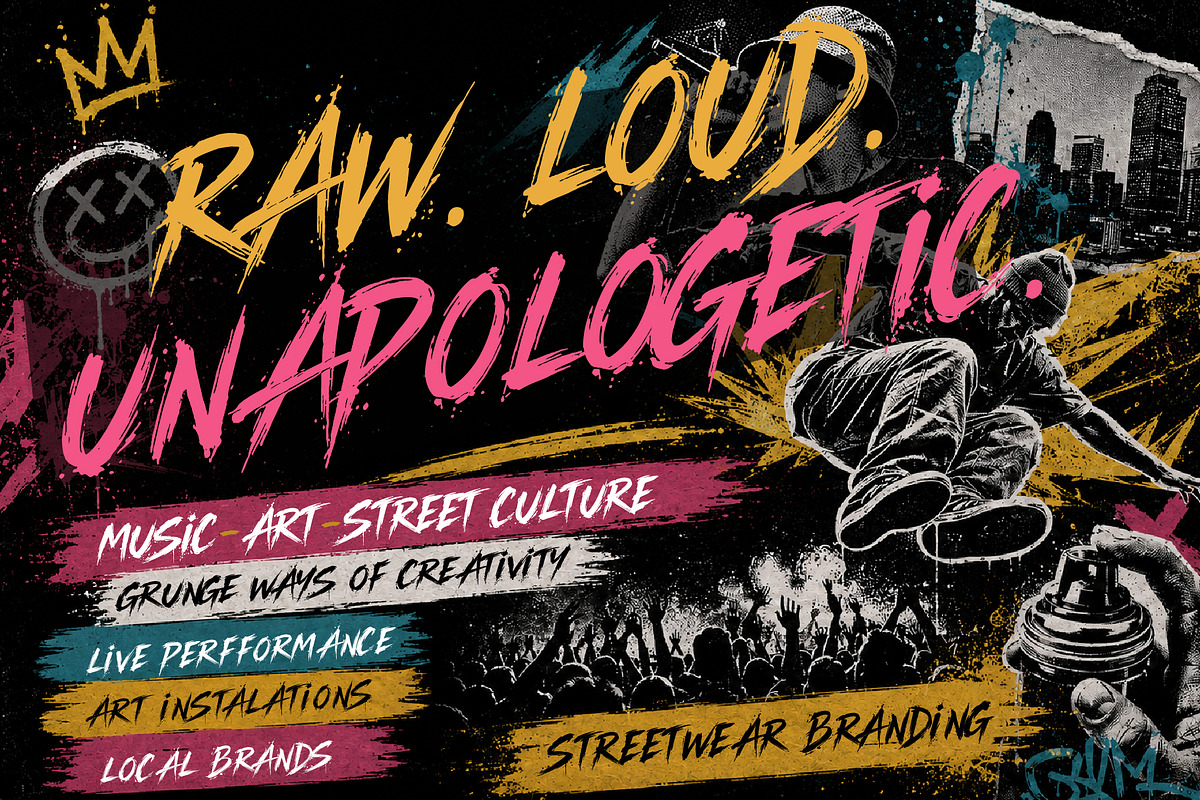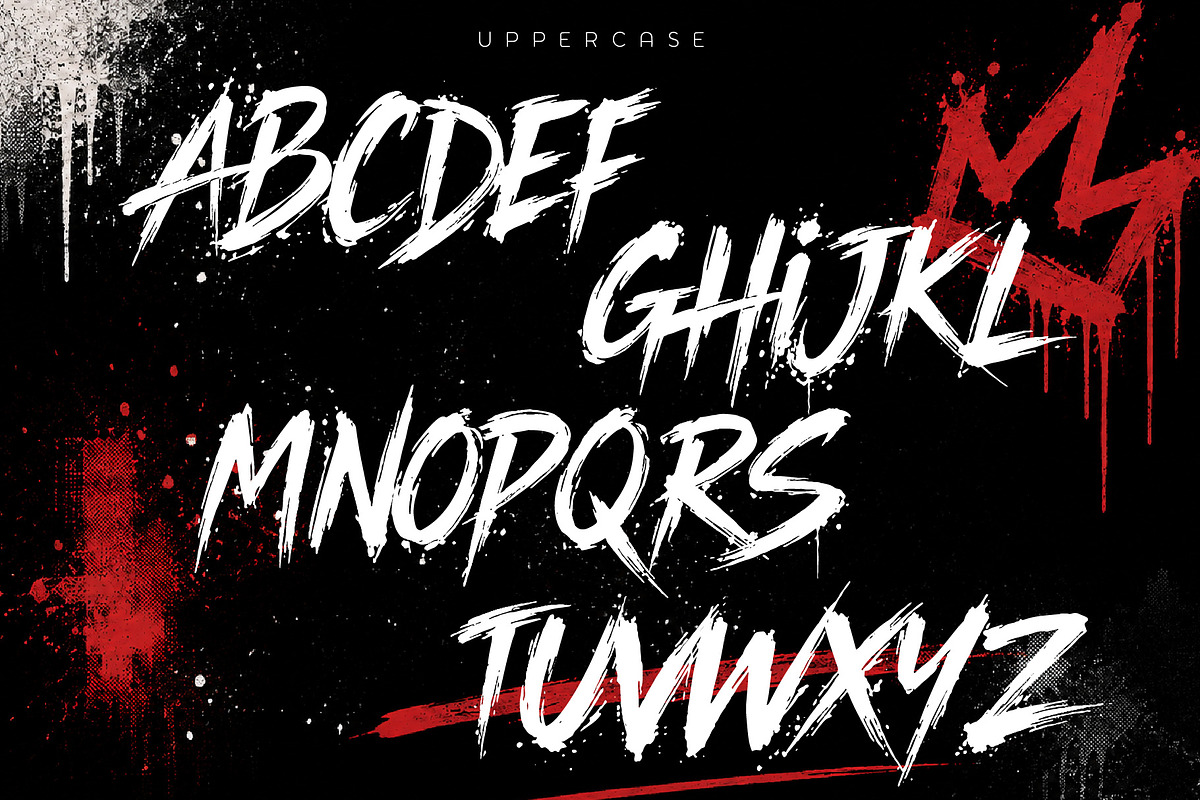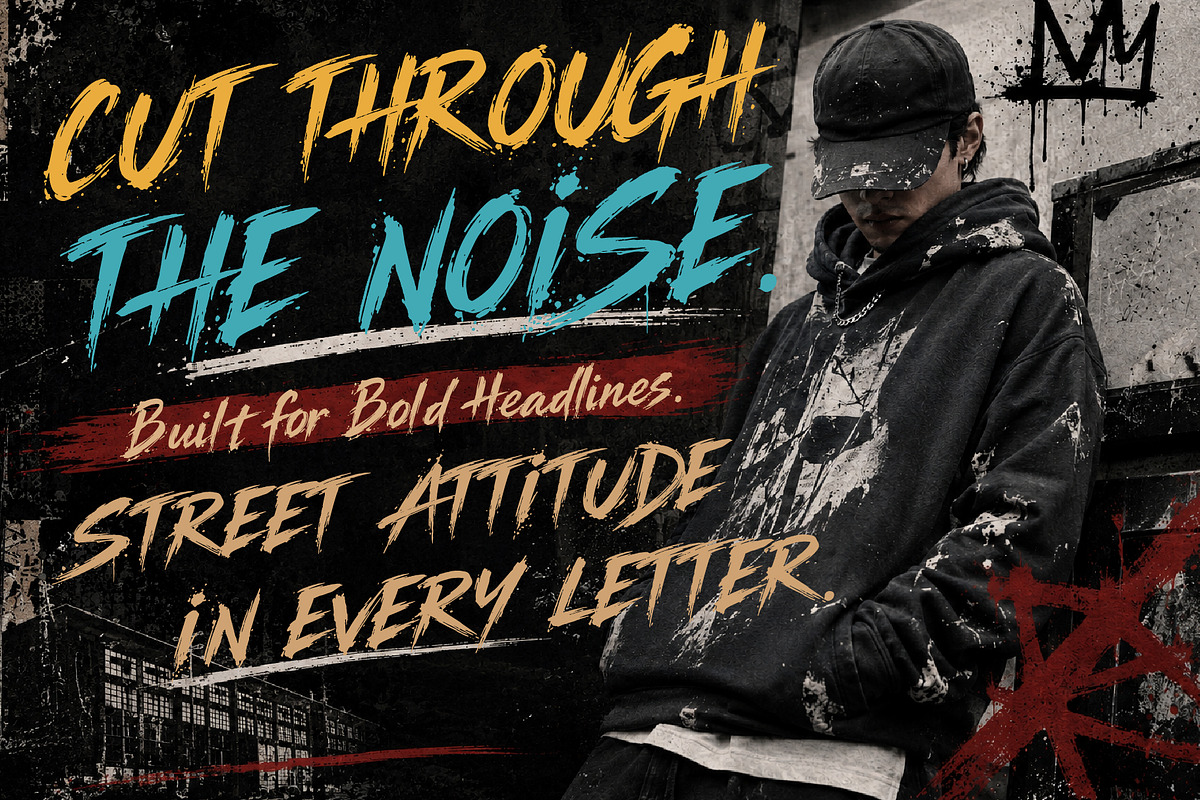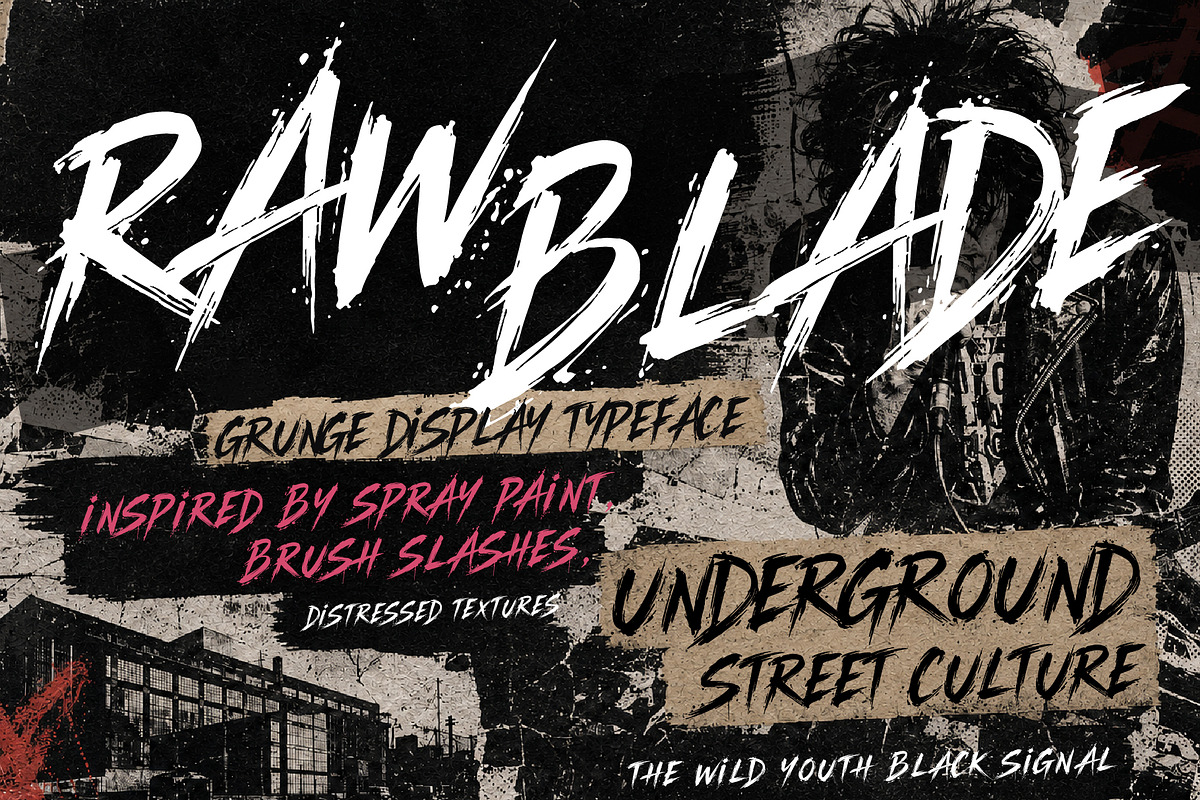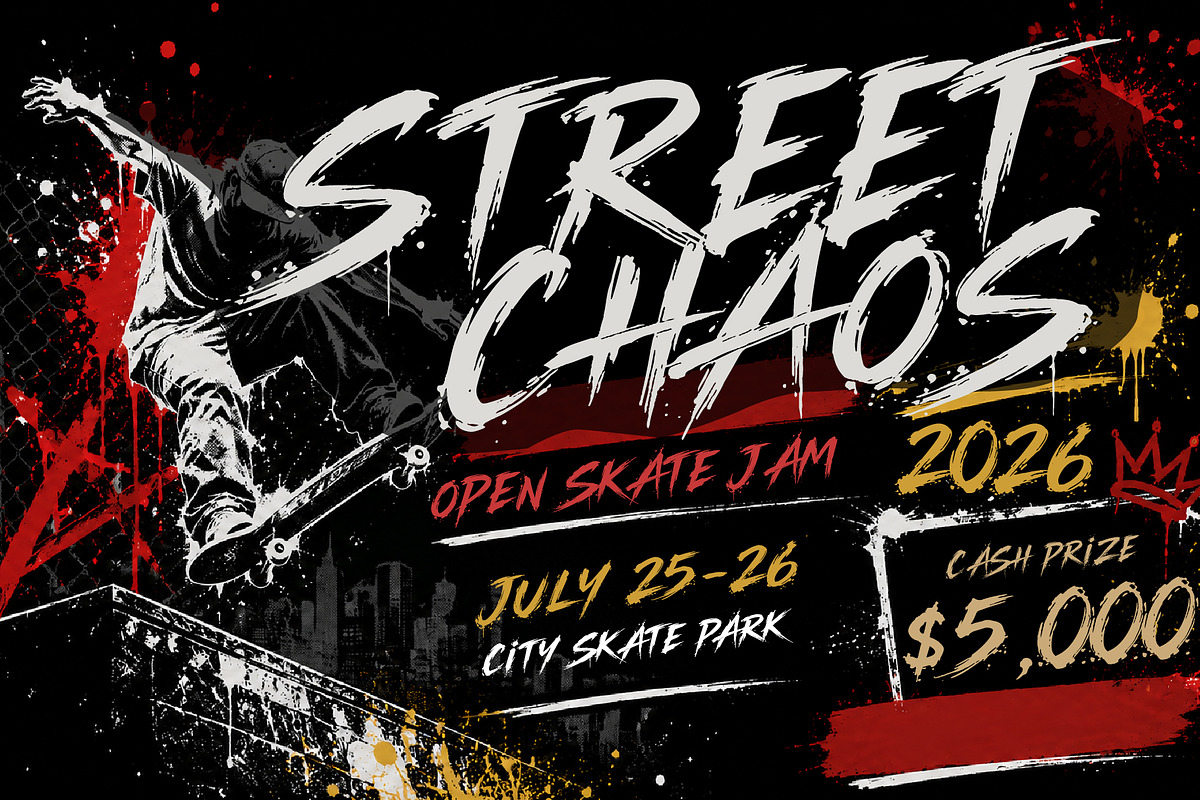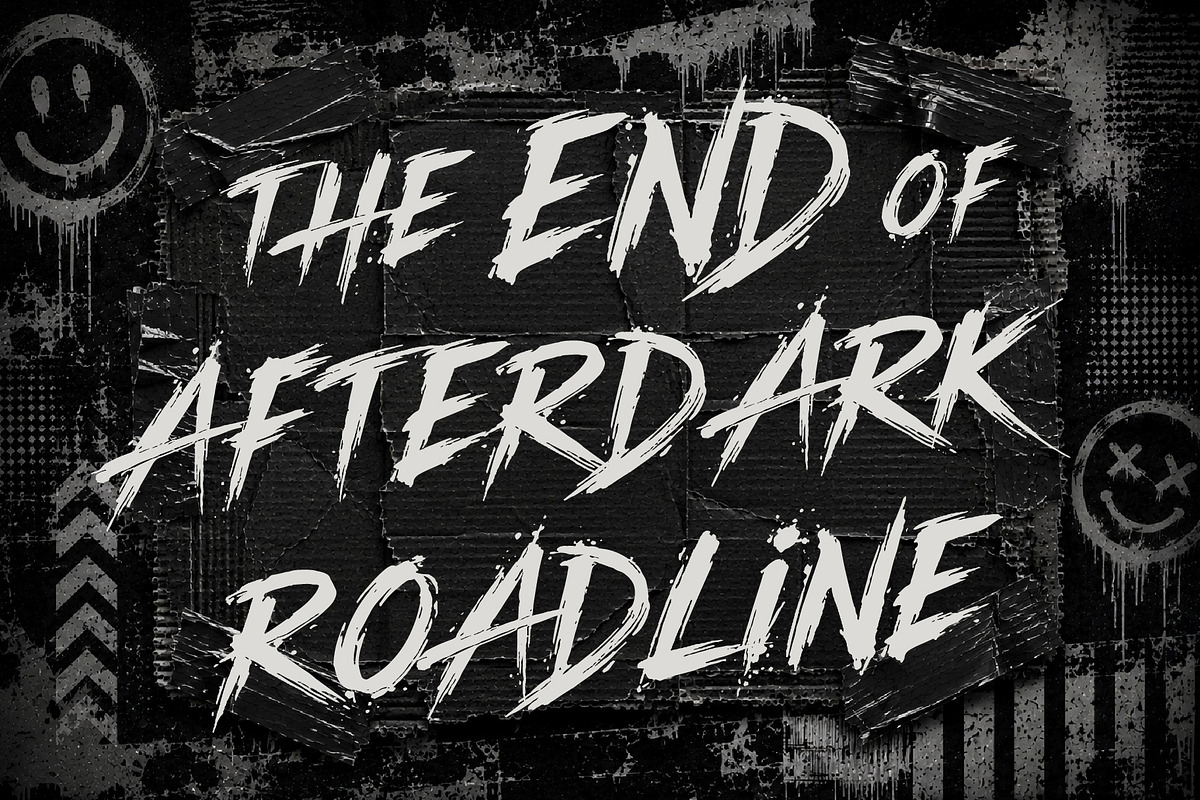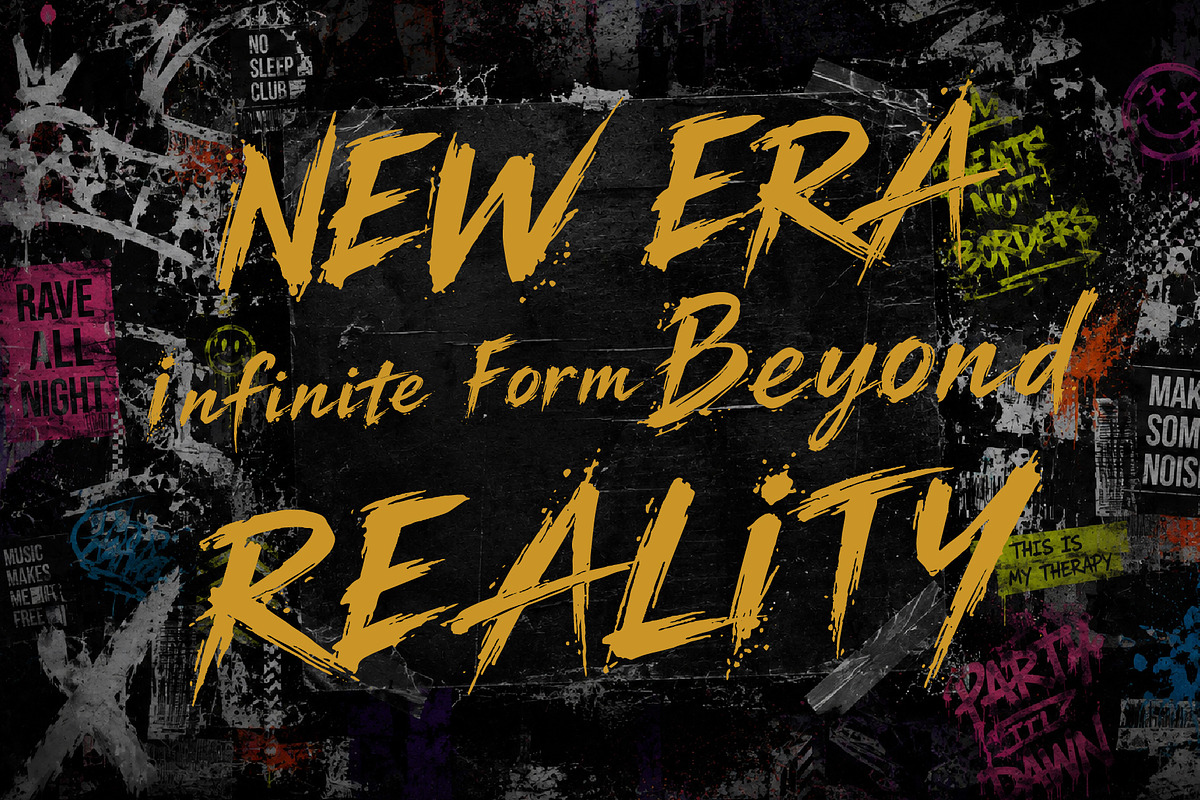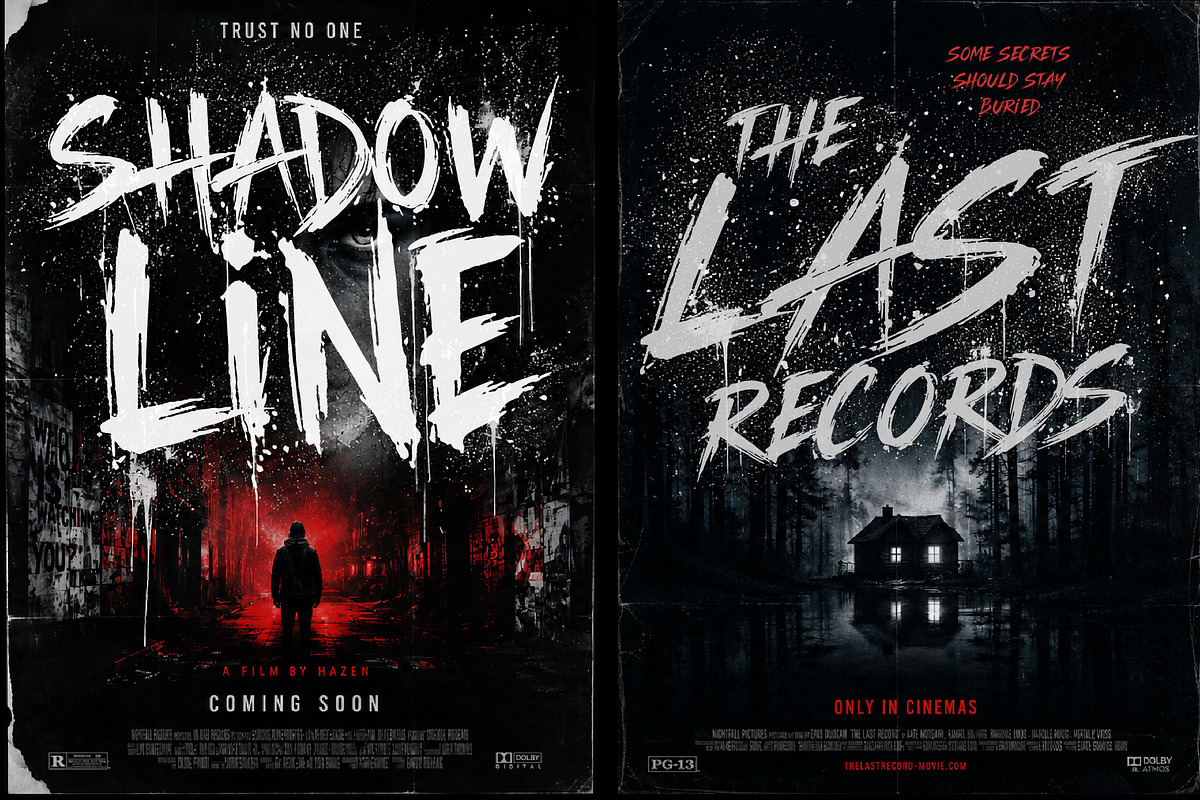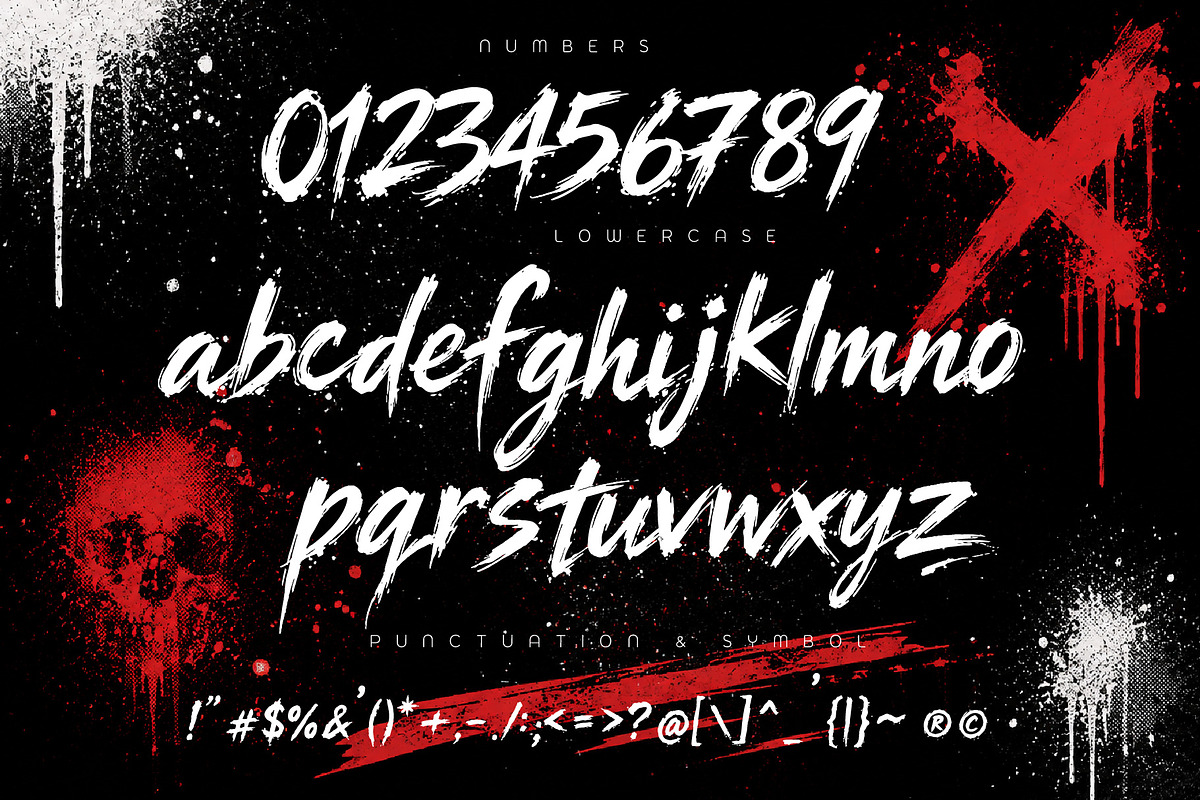
RawBlade - Grunge Display Typeface
RAWBLADE
Rawblade is a bold grunge display typeface inspired by spray paint, brush slashes, distressed textures, and underground street culture. Every letter carries rough edges, paint splatters, and aggressive strokes that create a raw, energetic look.
Designed for projects that demand attention, Rawblade is perfect for music posters, movie titles, gaming graphics, streetwear branding, album covers, sports events, YouTube thumbnails, social media, packaging, logos, and bold editorial headlines.
Whether you're creating a gritty punk flyer, a thriller movie poster, or an urban fashion campaign, Rawblade delivers a fearless visual impact with handcrafted imperfections and expressive character.
Rawblade brings raw energy, street attitude, and bold personality to every design.